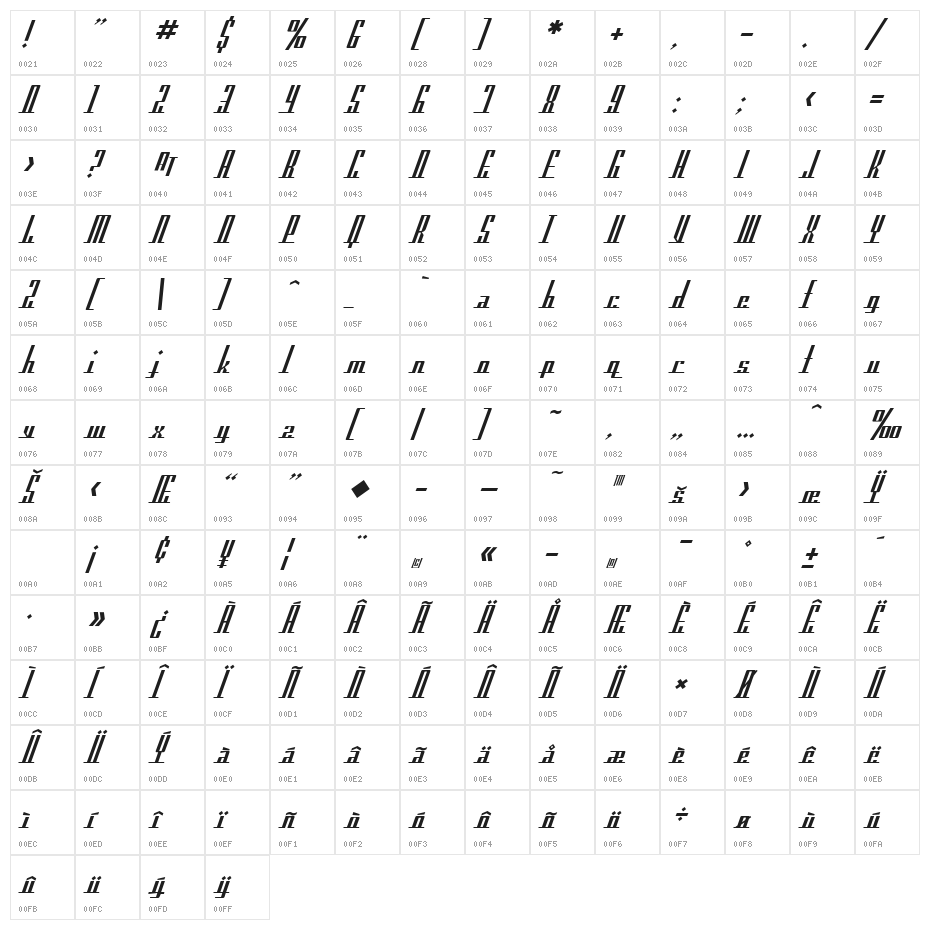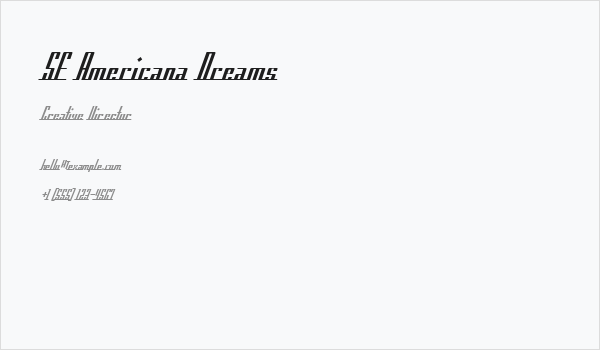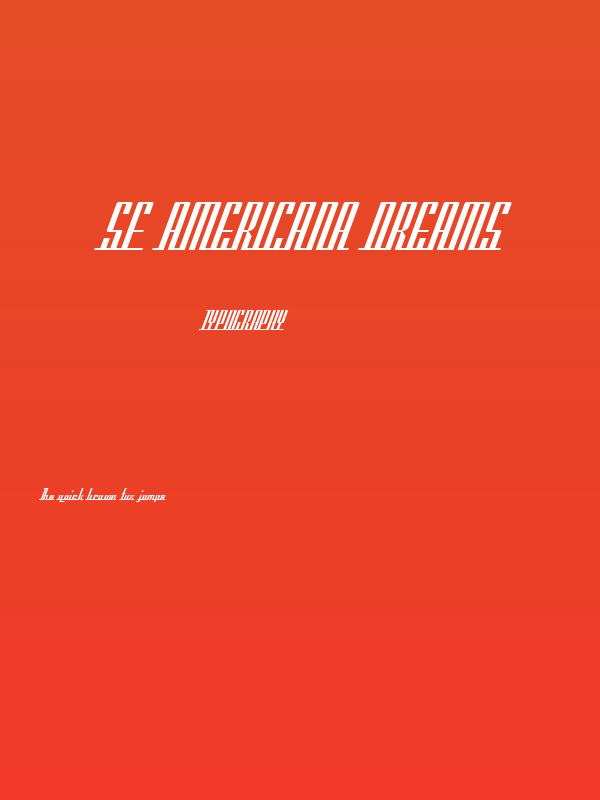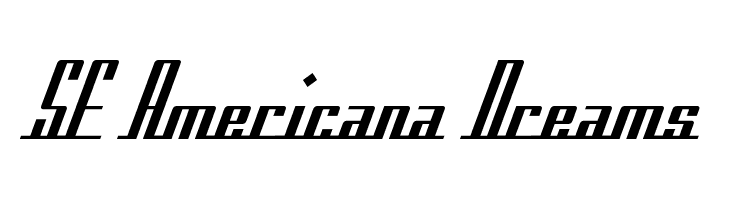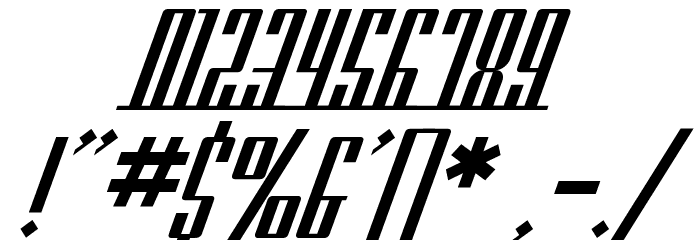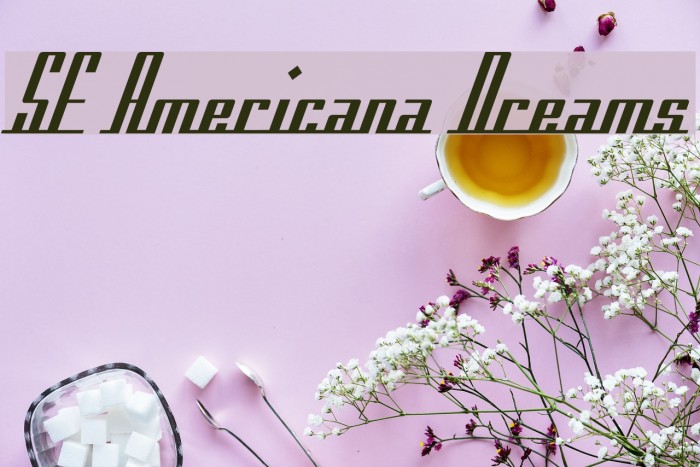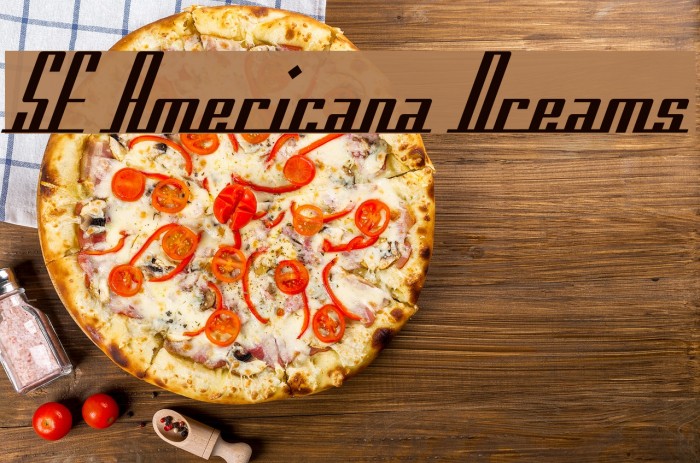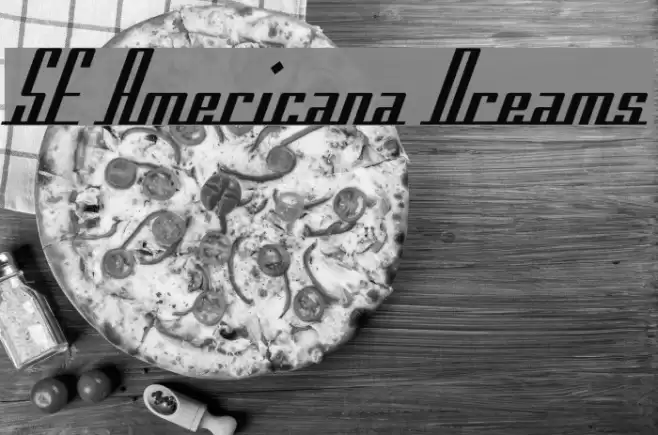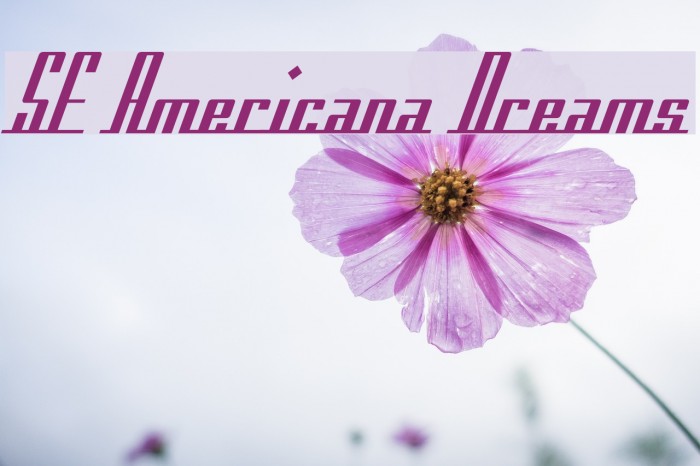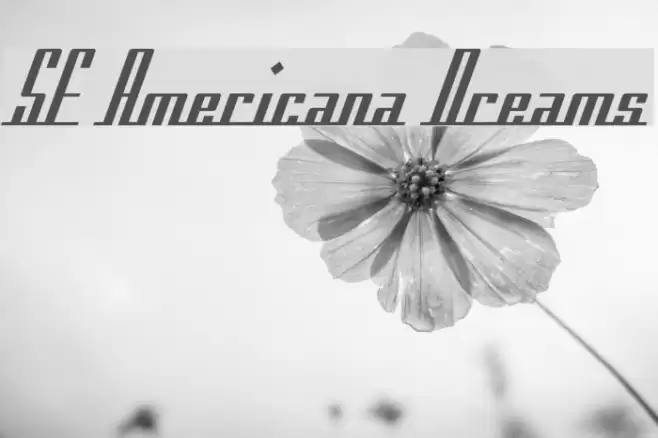
SF Americana Dreams Font
SF Americana Dreams Description
This font features a bold, italicized style with elongated, narrow characters that convey a sense of speed and modernity. The uppercase letters are tall and angular, with sharp edges and a consistent slant that adds a dynamic feel. The lowercase letters maintain the same slant and angularity, providing a cohesive look across all characters. Numbers and special characters follow the same design principles, ensuring uniformity. The overall appearance is sleek and contemporary, making it suitable for projects that require a strong, impactful visual presence.
| Use Case | Logos, Headlines, Posters |
| Proposed Projects | Ideal for branding, sports team logos, automotive designs, and dynamic advertising materials. |